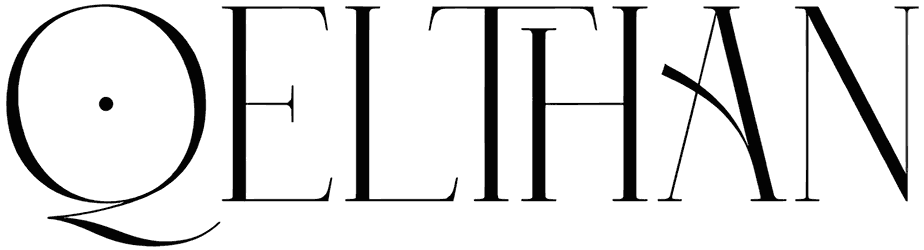
Qelthan Font
You’ll look at Qelthan and you instantly know. “This is going to be the face of my cosmetic brand”. End of discussion. End of a long search process. But the beginning of a lot of awesome opportunities for your beauty products.
So mark this day. This is when everything started to get pretty serious. Just a heads-up. It’s all gonna be done through capitals. No lowercase is allowed here. But don’t worry. Qelthan font has it all under control. Ligature style!